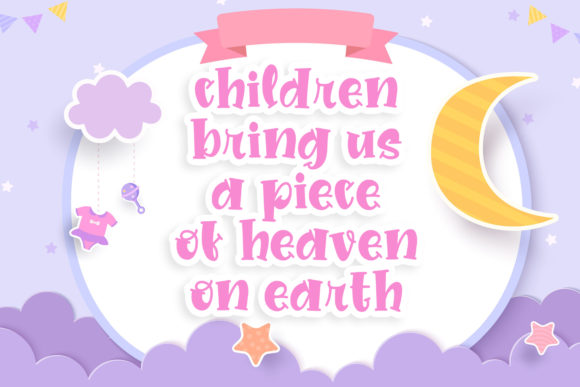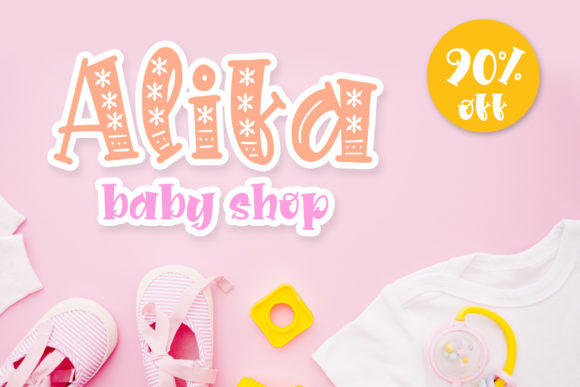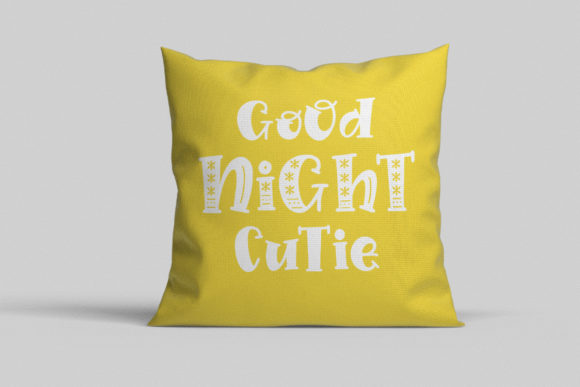
Introduction to Quirkid Font
Quirkid embodies playfulness and joy.
This font is perfect for children themed designs, especially when combined with bright colors .